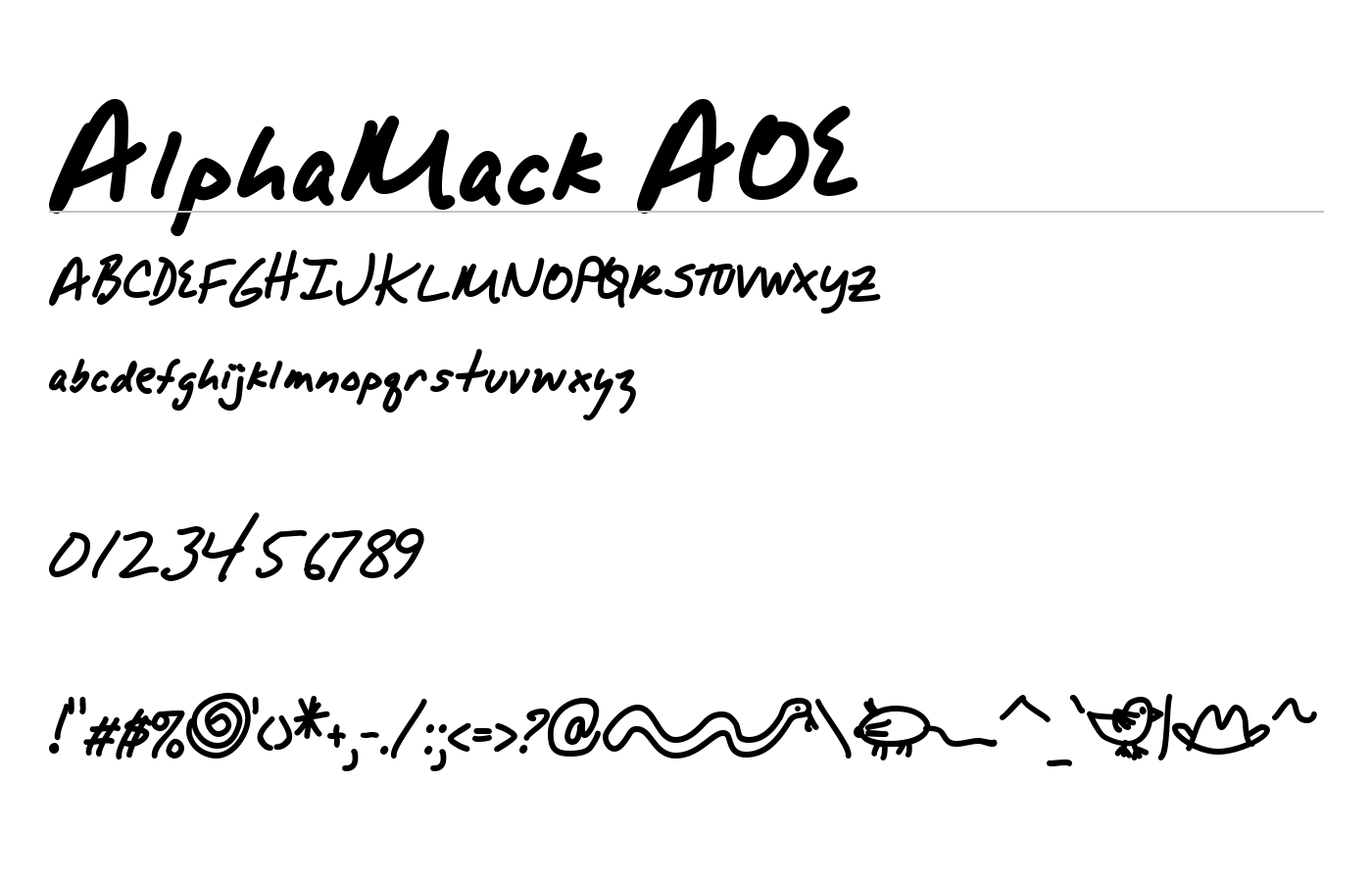
AlphaMack AOE is a playful, hand-drawn script font that mimics casual handwriting with an energetic and informal feel. Its loose, flowing strokes and quirky character shapes make it perfect for creative projects, personal branding, and fun, approachable designs like posters, invitations, or children's materials. This font adds a lively, friendly touch wherever a natural, handwritten style is desired.
AlphaMack AOE Font
About AlphaMack AOE Font
| Font family | AlphaMack AOE Font |
| Designer | Brian J. Bonislawsky, Astigmatic |